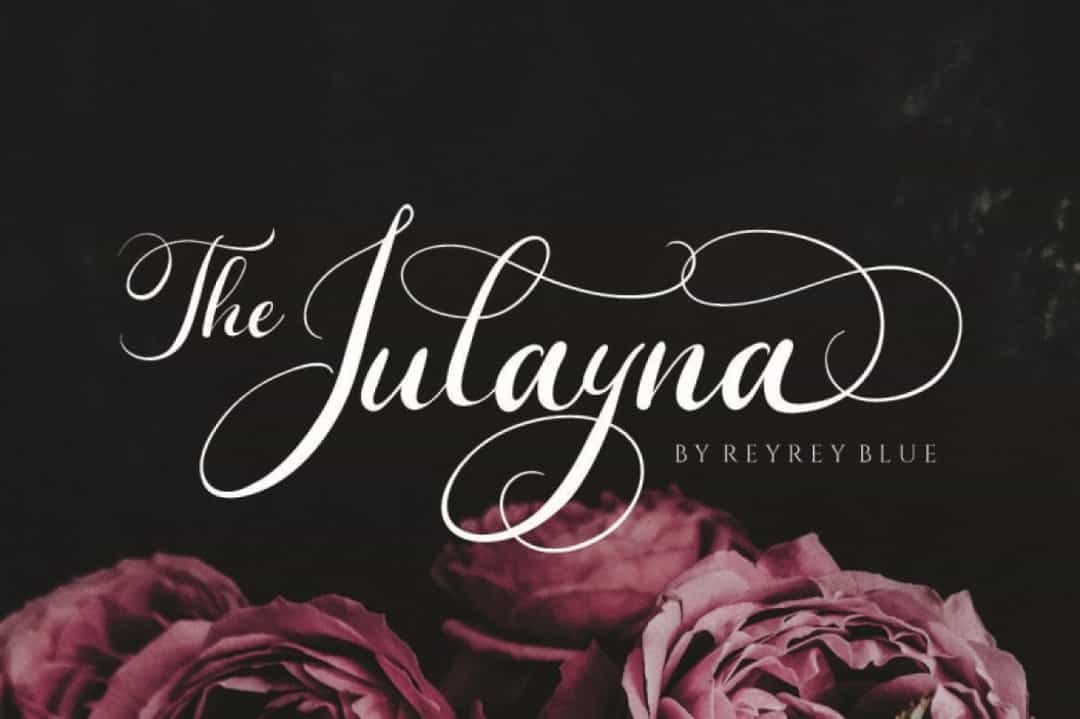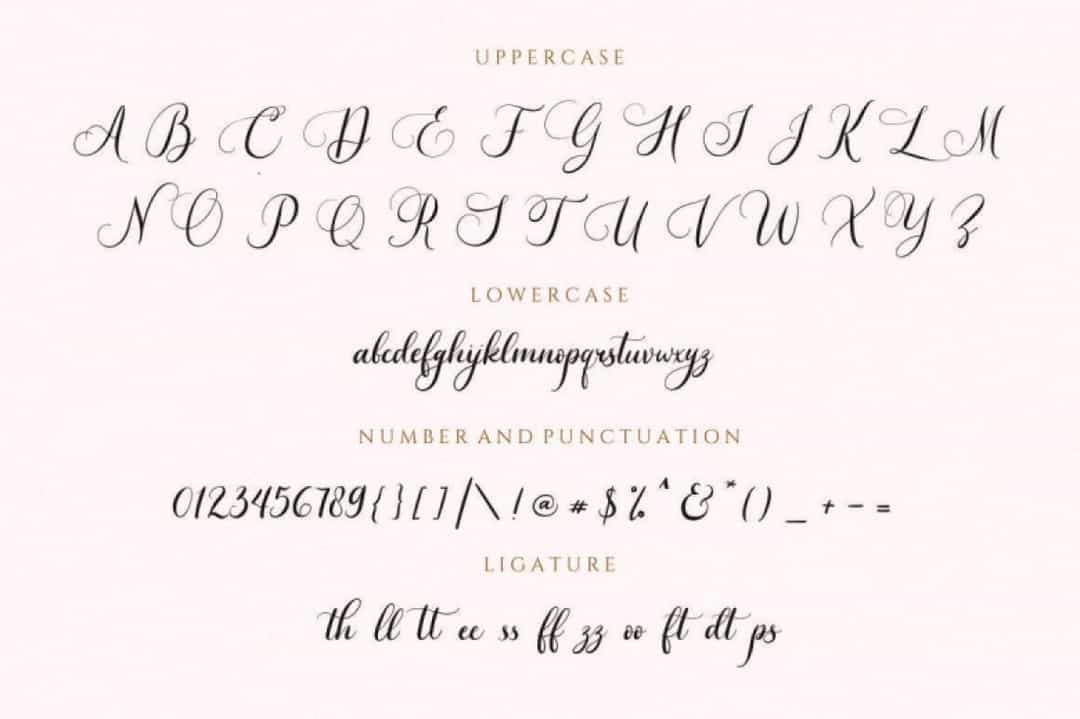
The Julayna script font is an elegant wedding script with luxurious energy that could add life and elegance to your next design project. Consider using this font on invitations, suite packaging, stationery with feminine branding like logos and quotes and prints – anything!